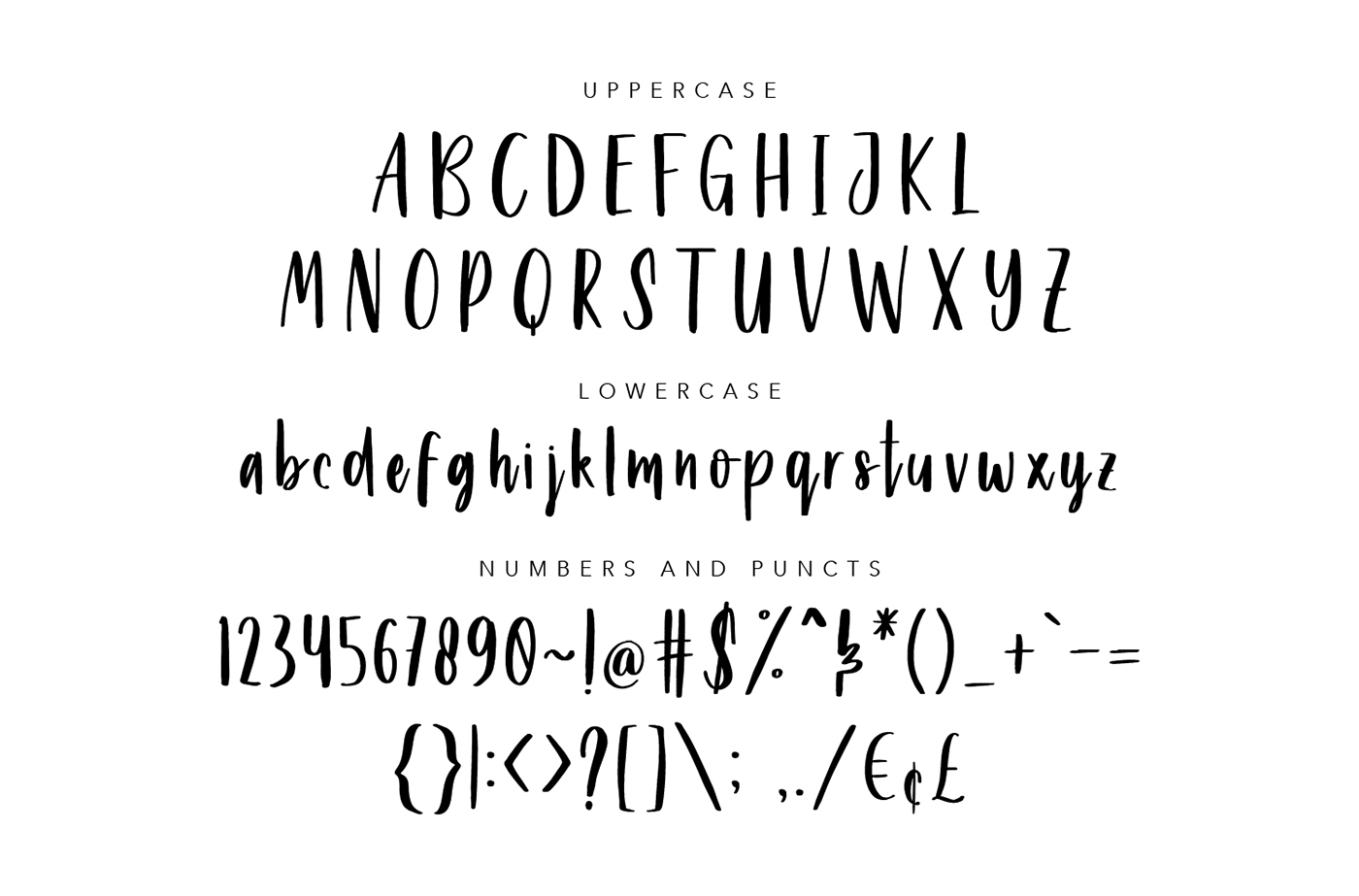
I know you've been searching for these-kinda fonts lately, yes they're goin' crazy out there nowadays. And here i'll give you for FREE for any use. Introducing, Beyouty Script. A hand written fonts with casual style and vintage vibes. Happily crafted for your vintage branding, casual logo, or any hand-crafted stuff that made with love, and share with joy.